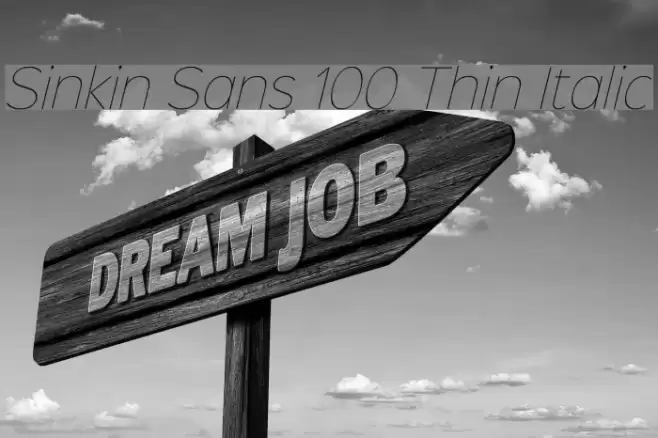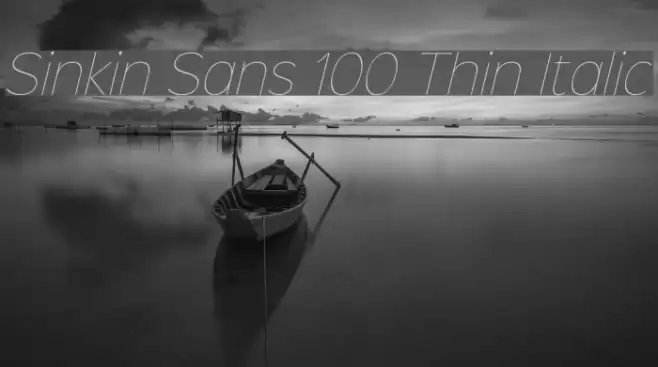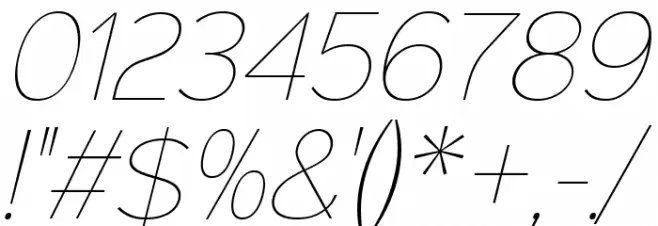
Sinkin Sans 100 Thin Italic Font
Sinkin Sans 100 Thin Italic Description
This font features a sleek and elegant design, characterized by its thin, elongated letterforms and subtle italic slant. The sans-serif style gives it a modern and clean appearance, making it highly versatile for various design applications. The characters are well-proportioned, with a consistent stroke width that enhances readability while maintaining a sophisticated aesthetic. The font includes a full set of uppercase and lowercase letters, numerals, and a range of special characters, offering comprehensive support for diverse text requirements. Its minimalistic approach is perfect for projects that require a touch of elegance without overwhelming the viewer.
A thin, italic sans-serif font with a modern and elegant style from Uncategorized fonts.
- Proposed Projects: Ideal for fashion magazines, luxury branding, minimalist websites, and elegant invitations.